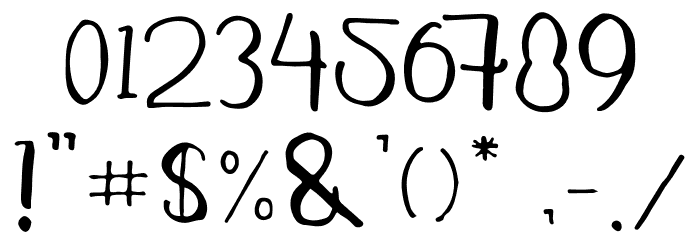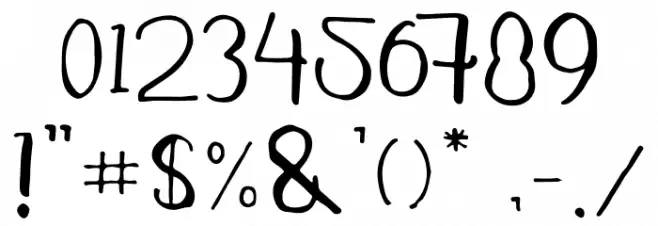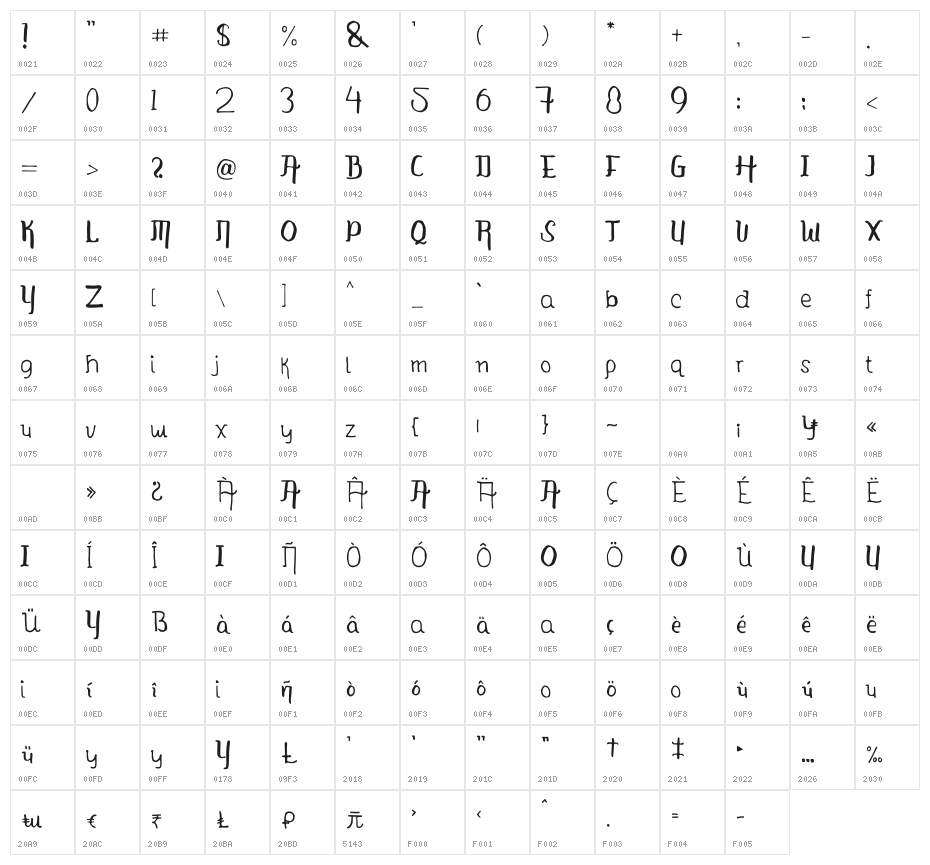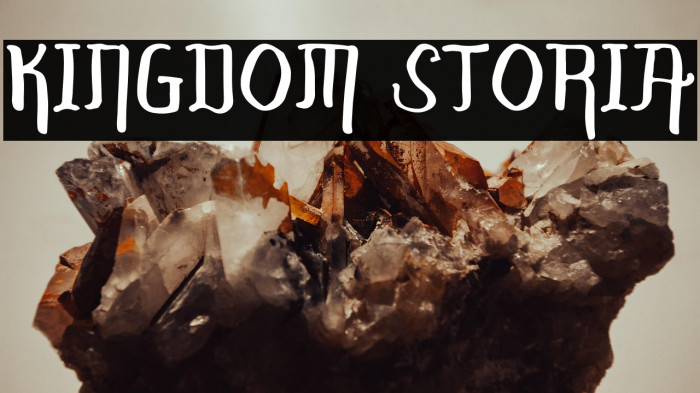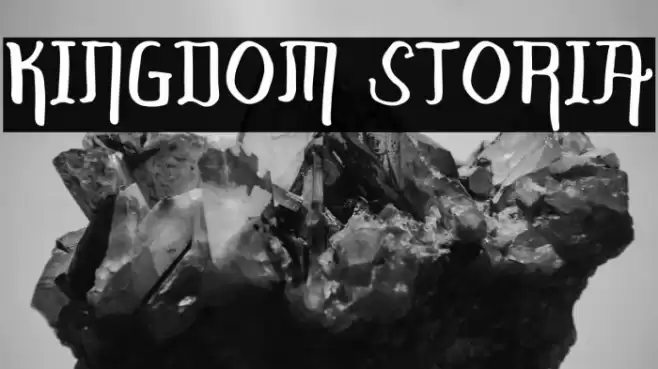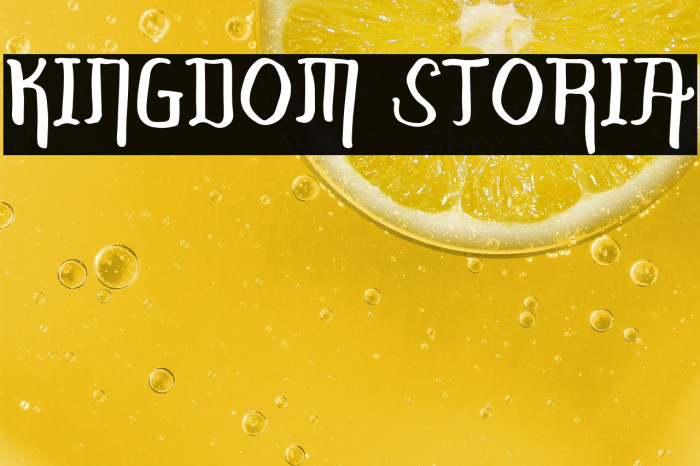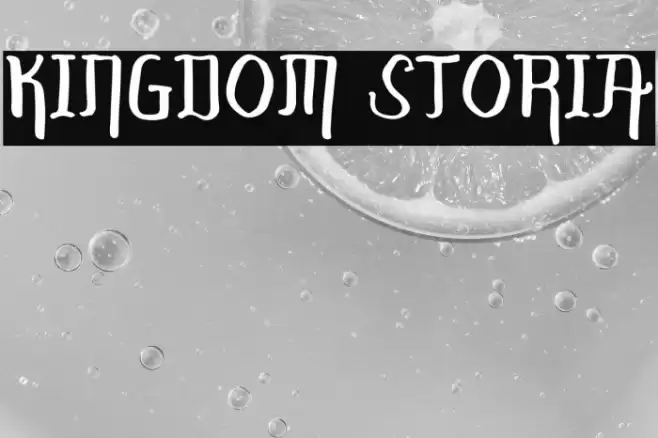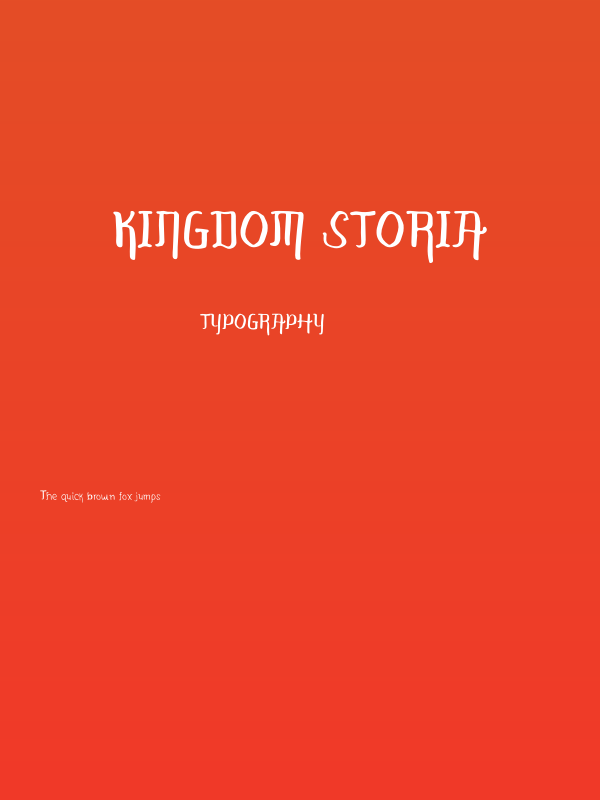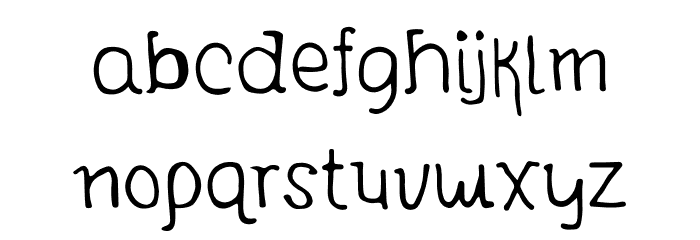
KINGDOM STORIA Font
KINGDOM STORIA Description
This font features a whimsical and playful design, characterized by its irregular and hand-drawn appearance. The letters have a unique, slightly uneven stroke that gives them a charming, organic feel. The uppercase letters are bold and prominent, while the lowercase letters maintain a consistent style with a slightly more delicate touch. The numbers and special characters follow the same playful theme, making the font suitable for creative and informal contexts. Its distinctive style makes it stand out, adding a touch of personality and fun to any project.
| Overall Style | Playful |
| Use Case | Headlines, Logos, Creative projects |
| Proposed Projects | Ideal for children's books, playful branding, greeting cards, and creative posters. |